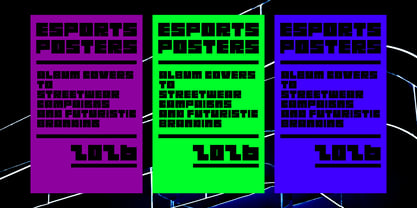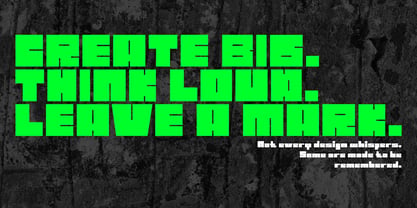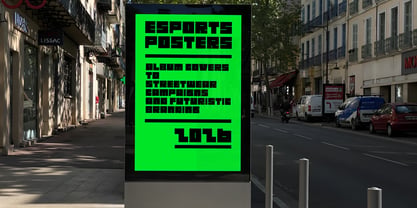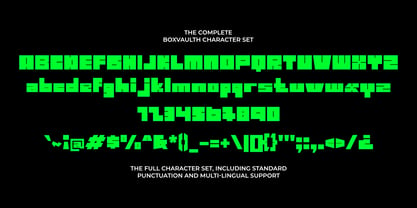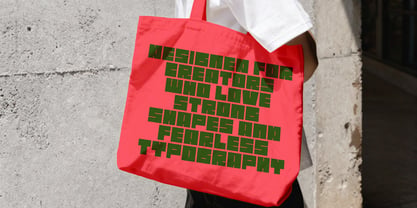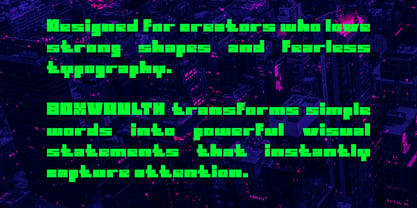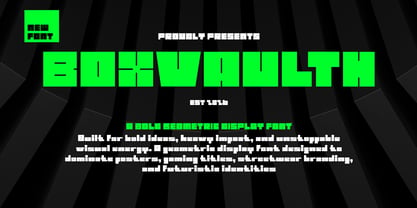
Boxvaulth
Die Schriftfamilie Boxvaulth wurde von Wahyu Eka Prasetya, Mei Suseno entworfen und von Mei Suseno veröffentlicht. Boxvaulth enthält 1 Stile. Mehr über diese Familie
Boxvaulth is a bold geometric display font designed to deliver maximum visual impact. With its sharp edges, blocky structure, and futuristic character, this typeface is perfect for projects that demand strong attention and a powerful presence. Inspired by gaming aesthetics, cyberpunk visuals, and modern streetwear culture, Boxvaulth brings an energetic and confident personality to any design.
Ideal for posters, gaming titles, esports branding, album covers, streetwear labels, logos, packaging, social media graphics, and futuristic identities, Boxvaulth is built to make every headline stand out. Its heavy proportions and distinctive letterforms create a memorable look that feels both modern and aggressive.